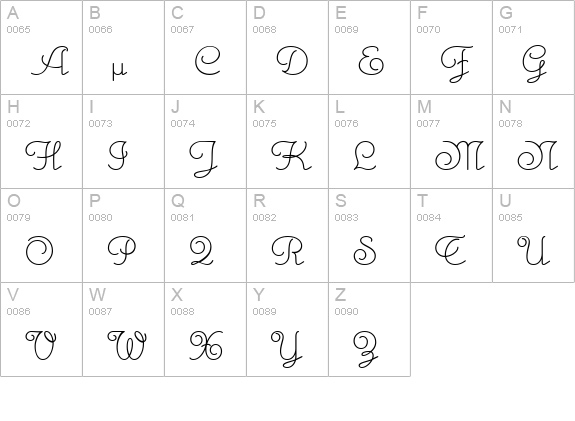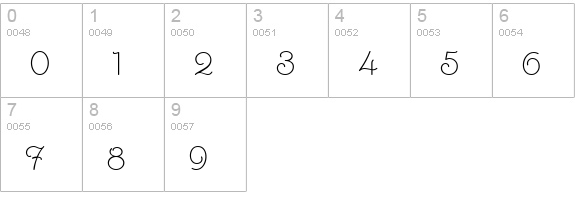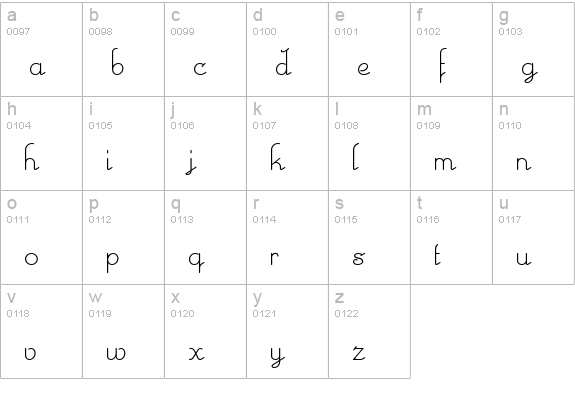
MonteCarloScriptNF Medium Font Details
MonteCarloScriptNF Medium is a balanced, medium-weight variant in the MonteCarloScriptNF typeface family \xE2\x80\x94 well suited to sub-headlines, navigation, and balanced editorial work.
MonteCarloScriptNF Medium font is a versatile and elegant script typeface that exudes sophistication and charm. Its flowing lines and graceful curves make it perfect for a wide range of design projects, from invitations to branding materials. The medium weight strikes a balance between readability and style, making it suitable for both headlines and body text. This beautiful font is perfect for adding a touch of elegance to your designs, whether you're creating wedding invitations, greeting cards, or social media graphics. With its timeless appeal and classic aesthetic, MonteCarloScriptNF Medium font is sure to elevate any project it is used in. Best of all, MonteCarloScriptNF Medium font is available for free download at FontsMarket.com. So go ahead and add this stunning typeface to your font collection today and bring a touch of sophistication to your next design project!